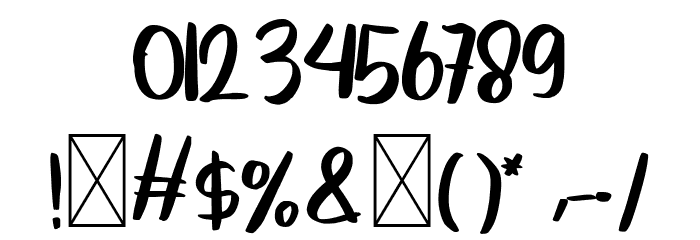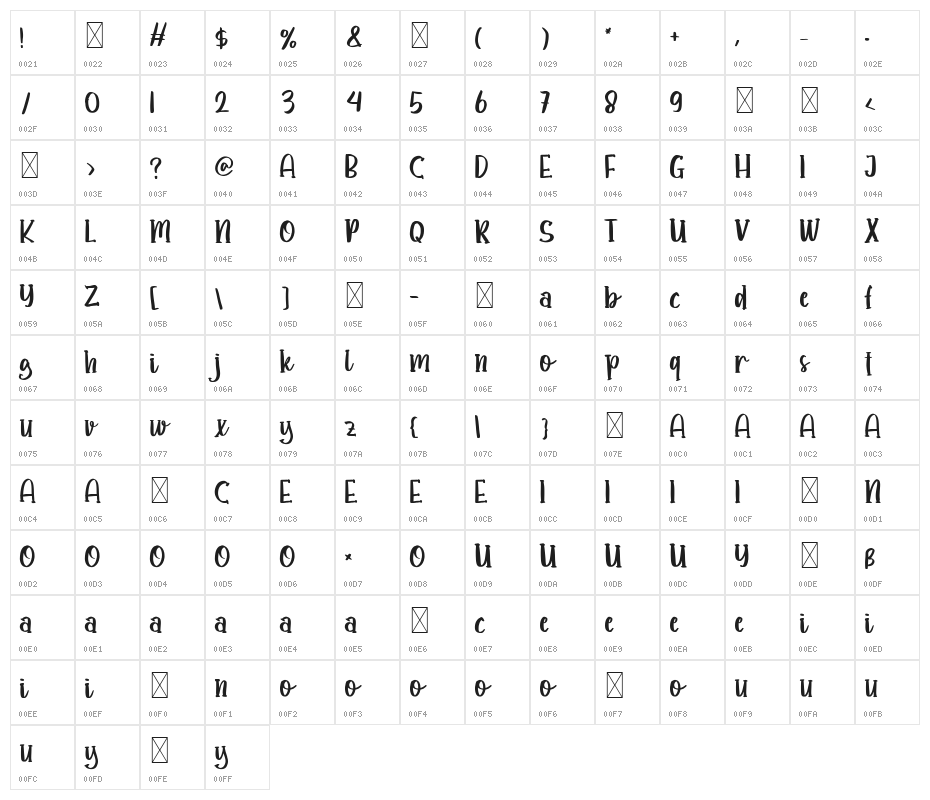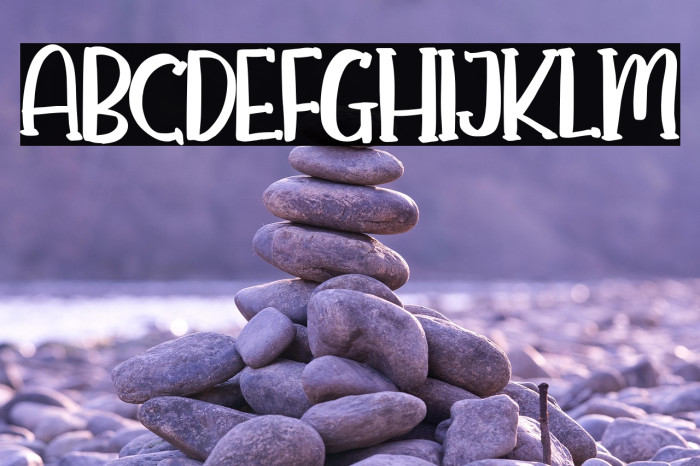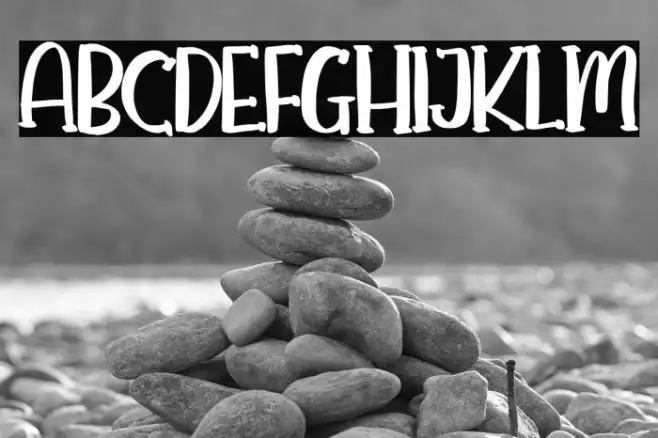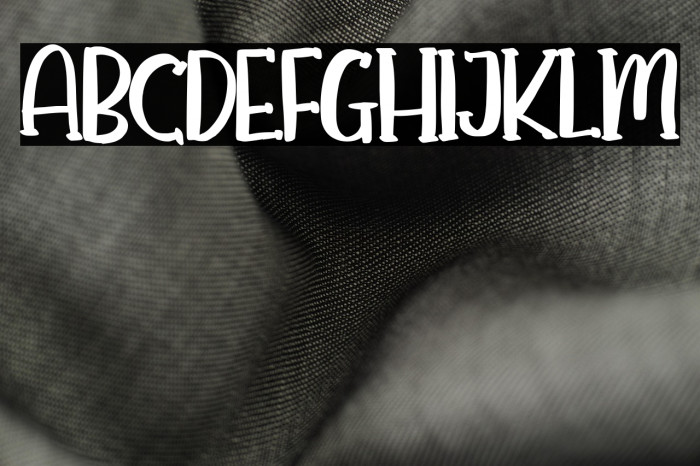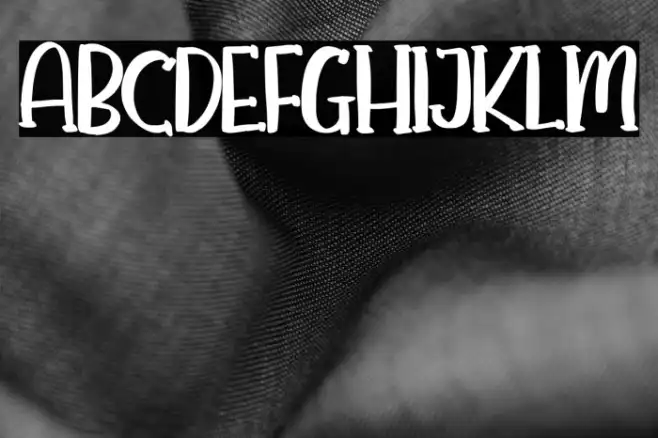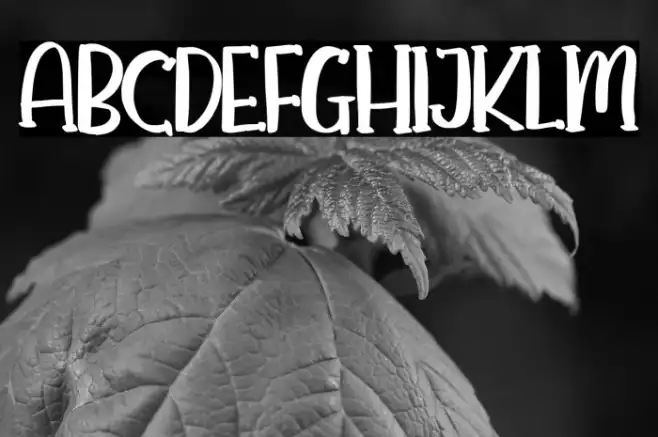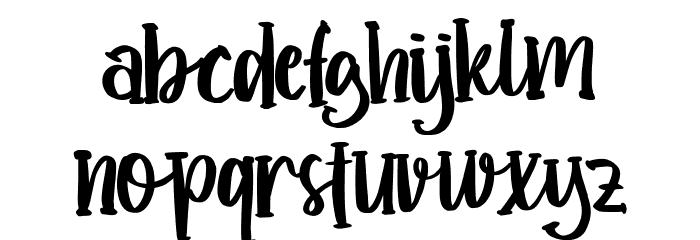
Moms Story Font
Moms Story Description
This font features a playful and whimsical style with a handwritten appearance. The letters are bold and slightly irregular, giving it a casual and friendly feel. The uppercase letters are tall and slightly narrow, while the lowercase letters have a more rounded and flowing form. The numbers are consistent with the playful style, maintaining the same boldness and slight irregularity. Special characters are included, adding versatility to the font. The overall look is dynamic and lively, making it suitable for creative and informal projects.